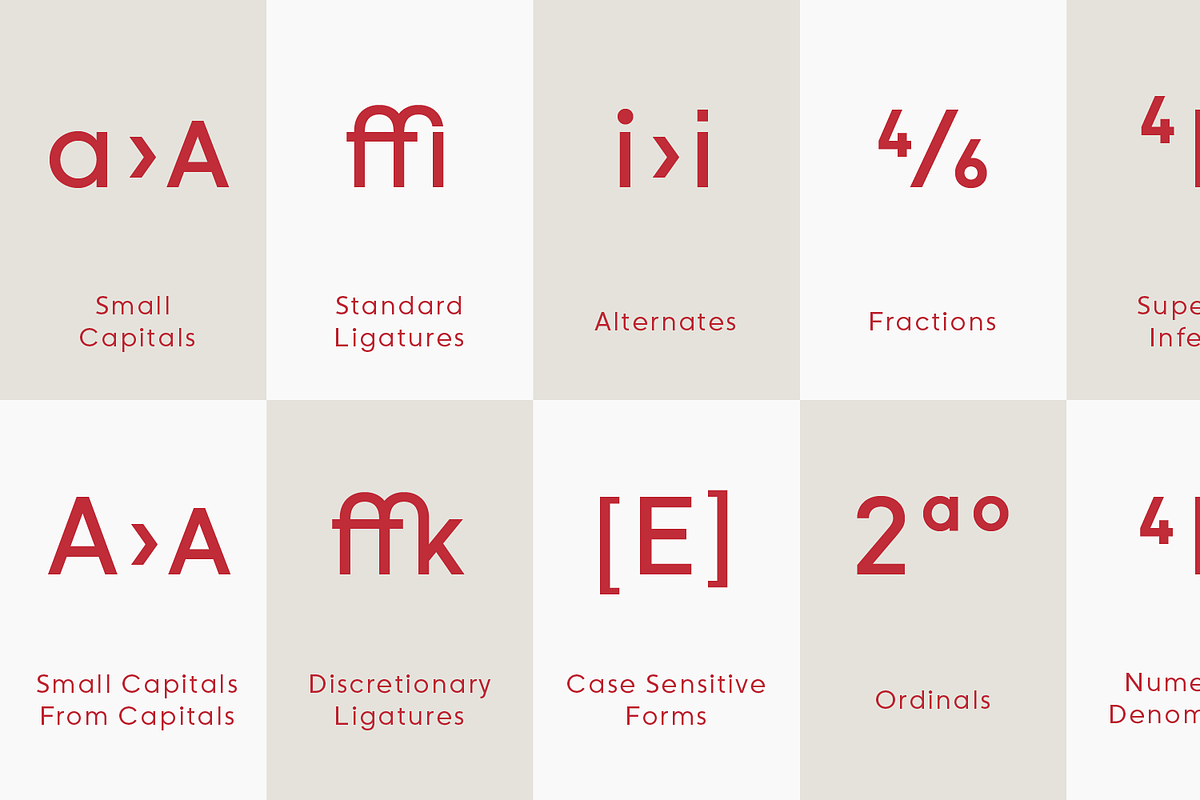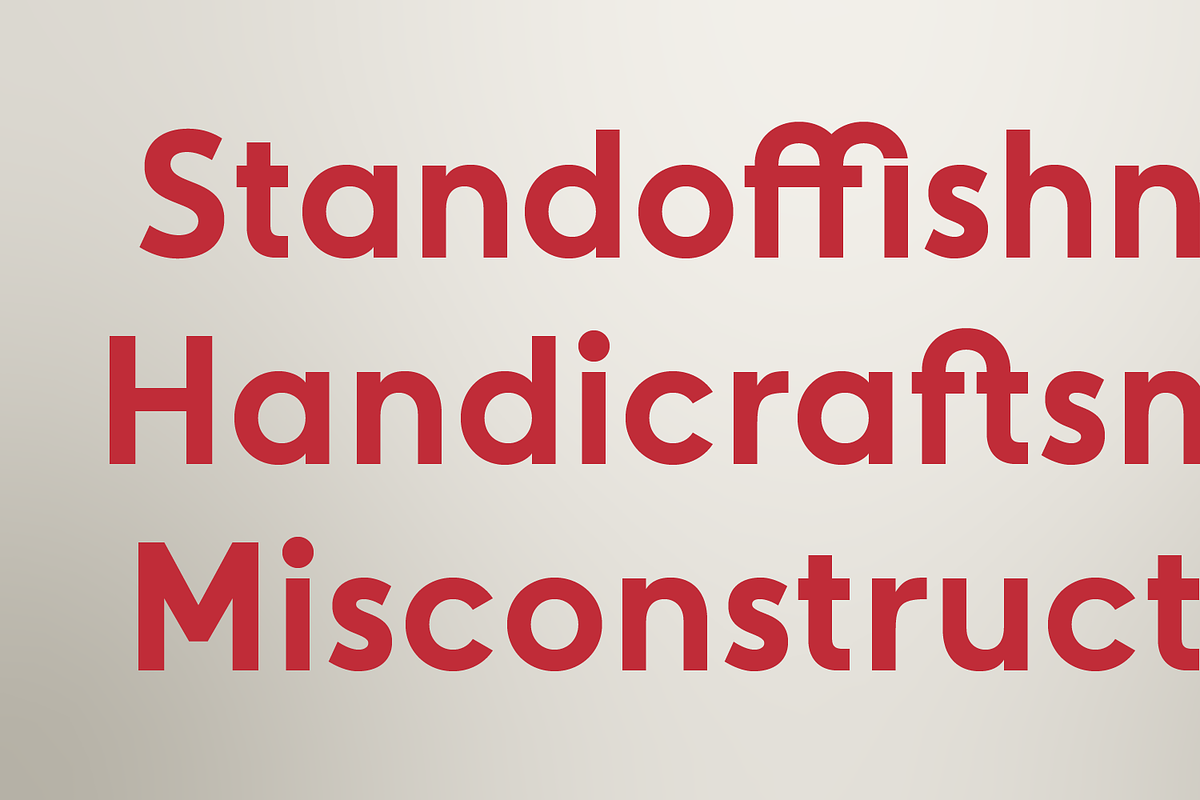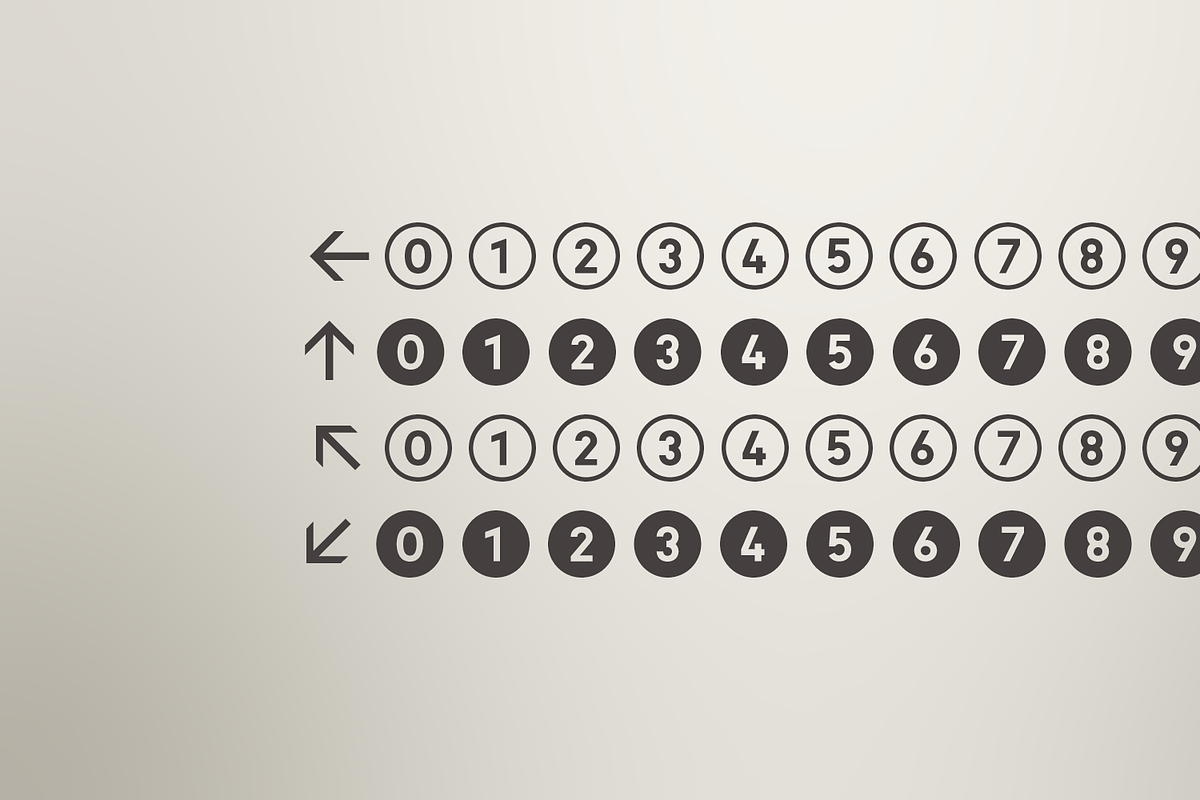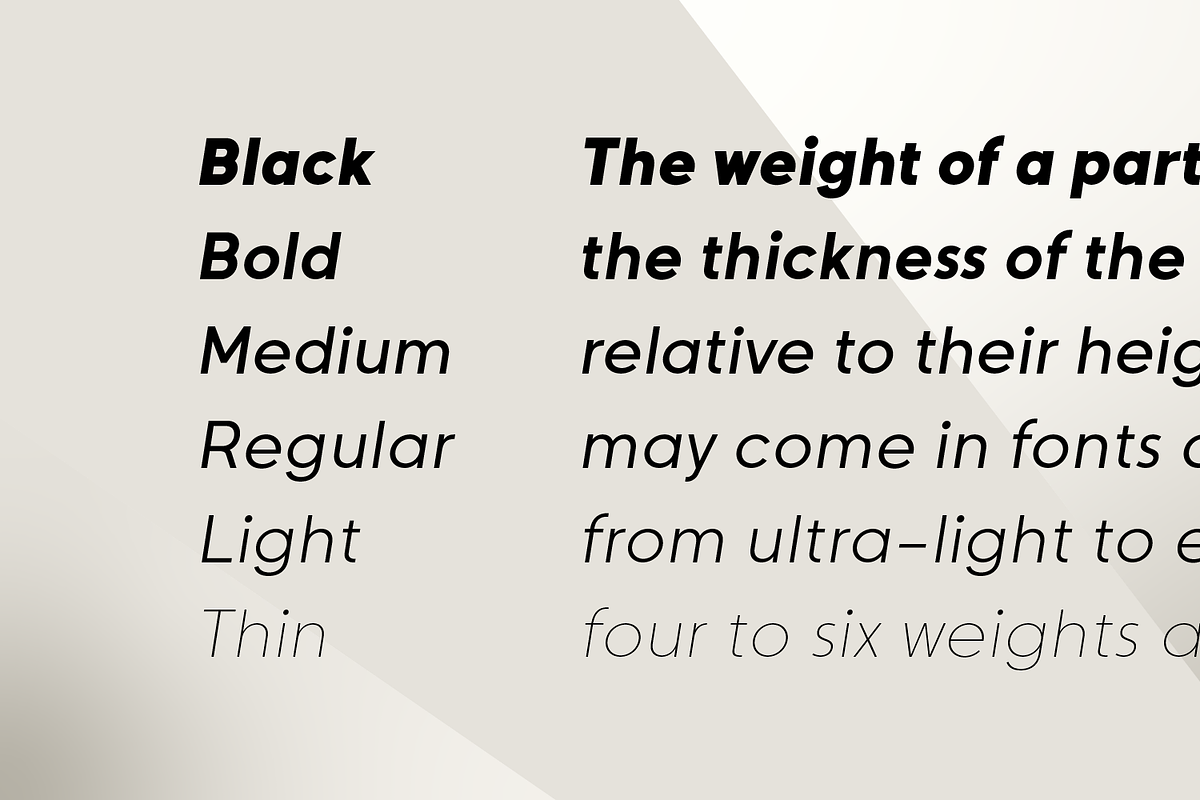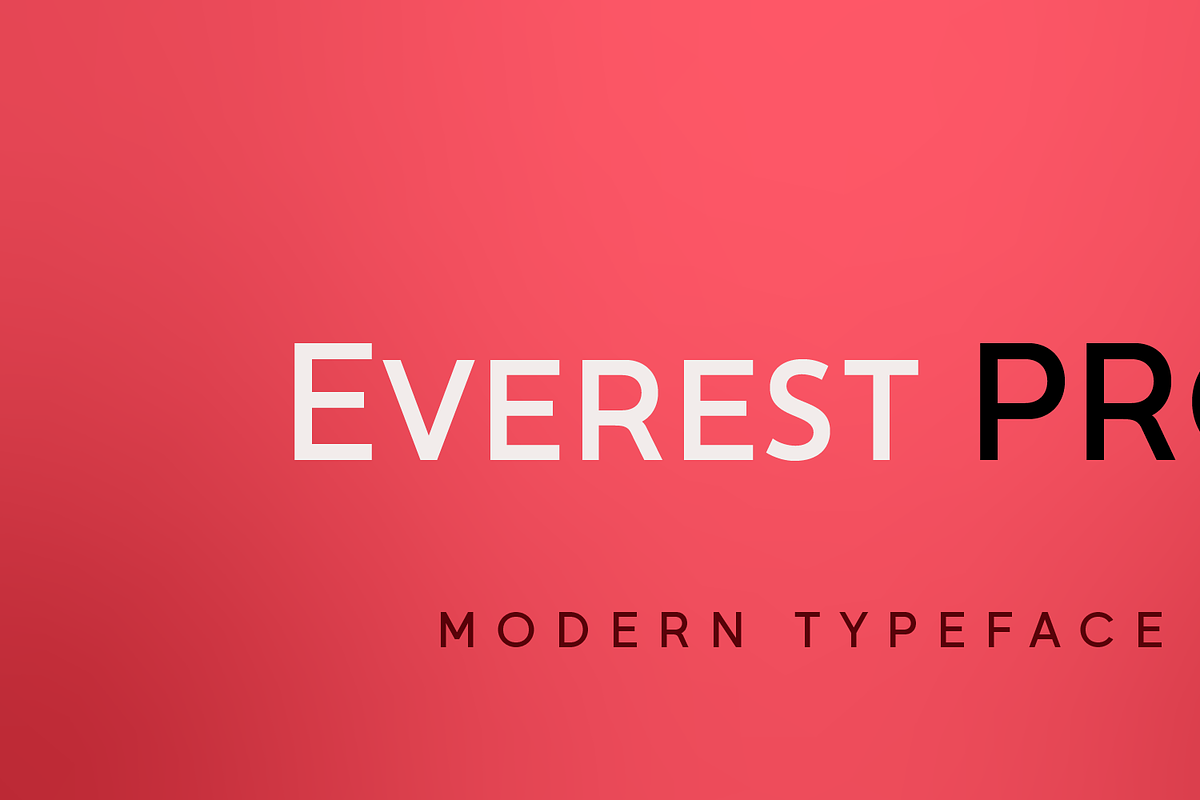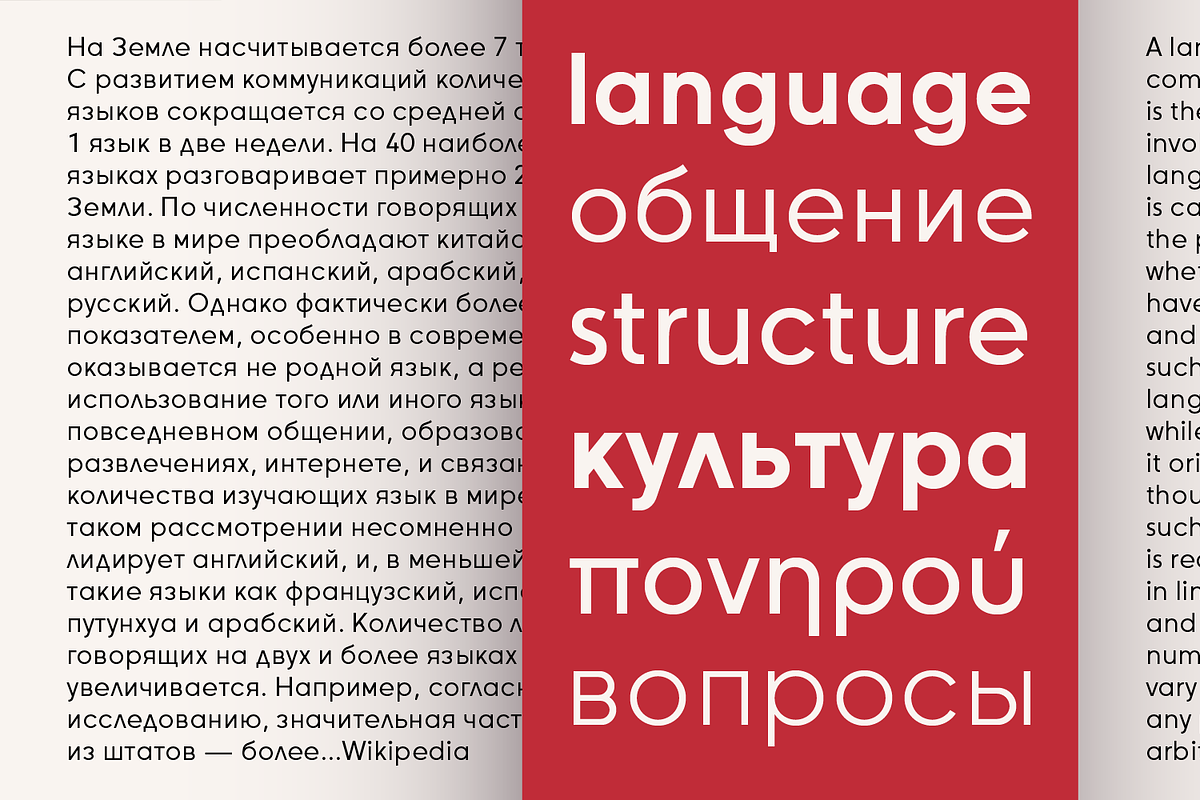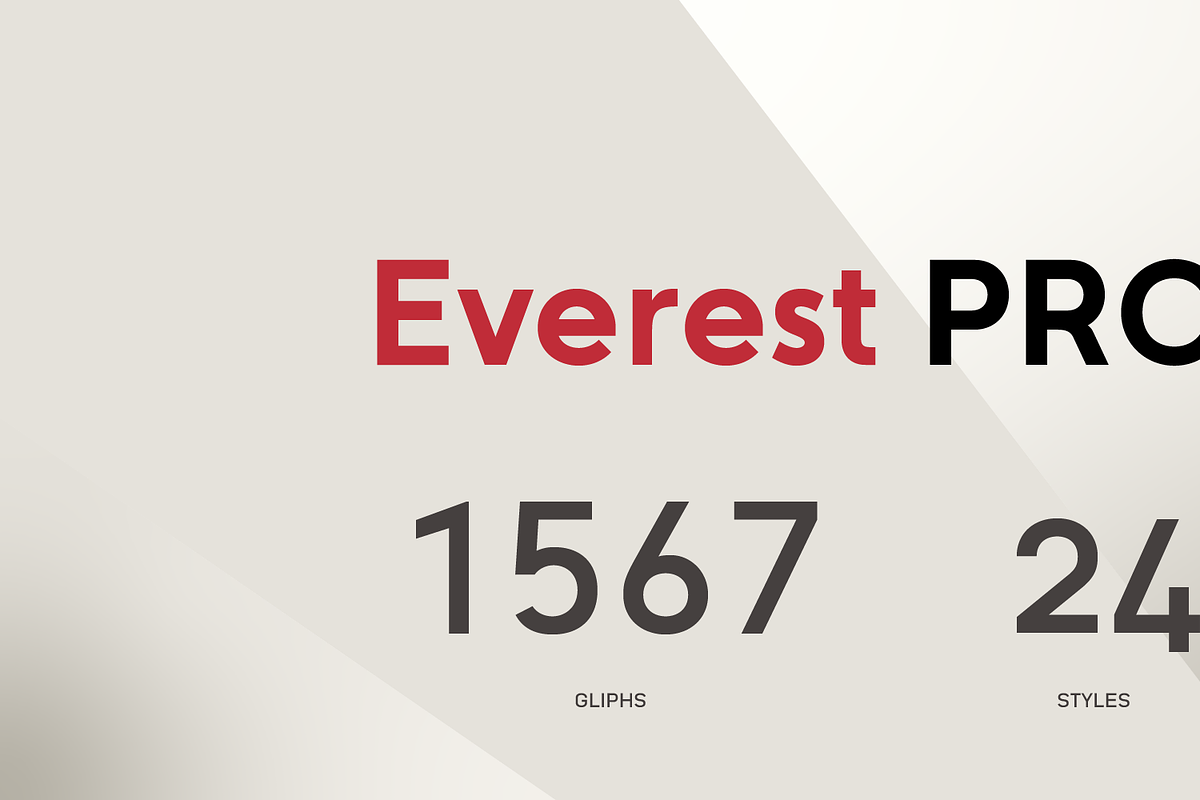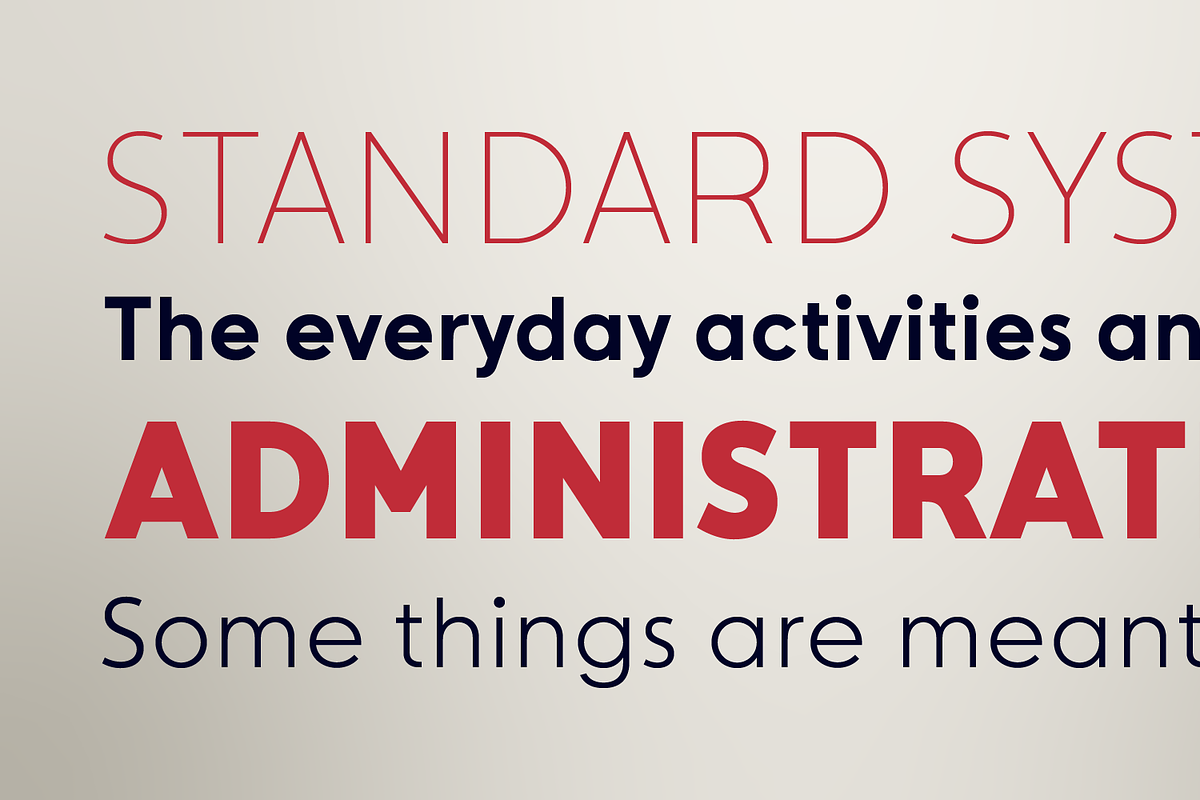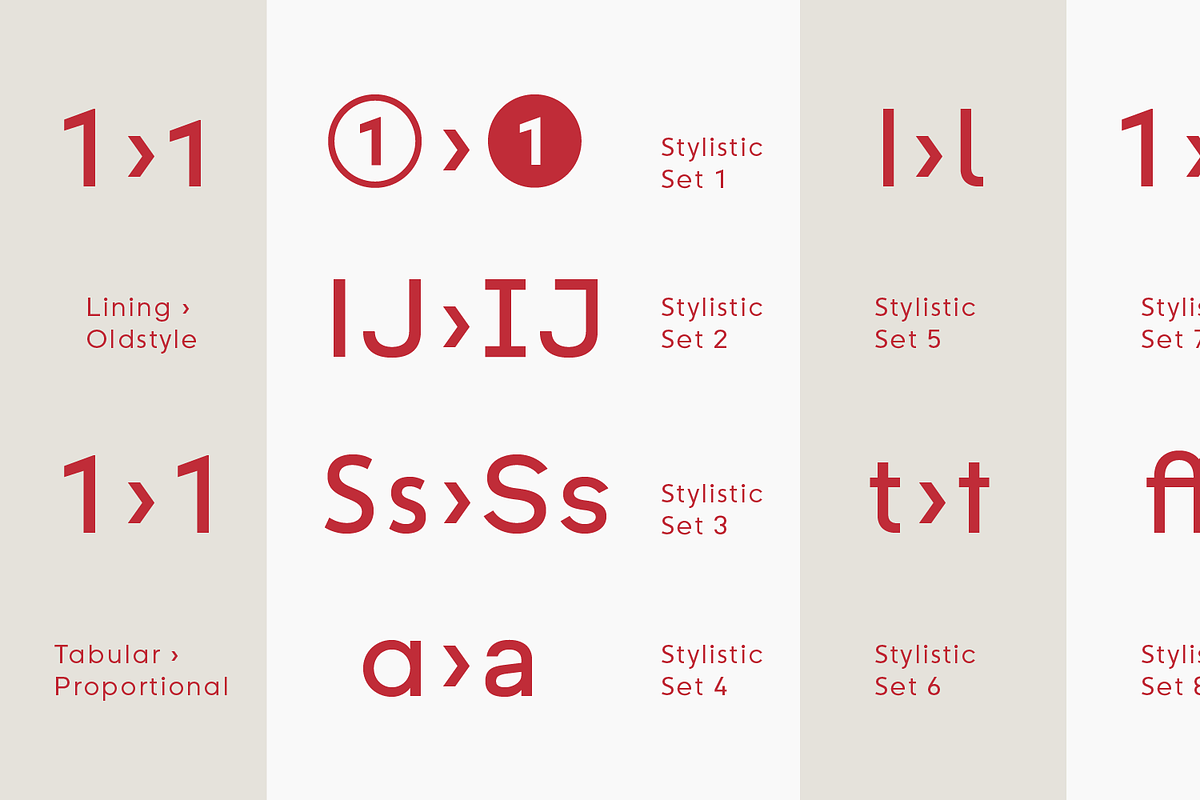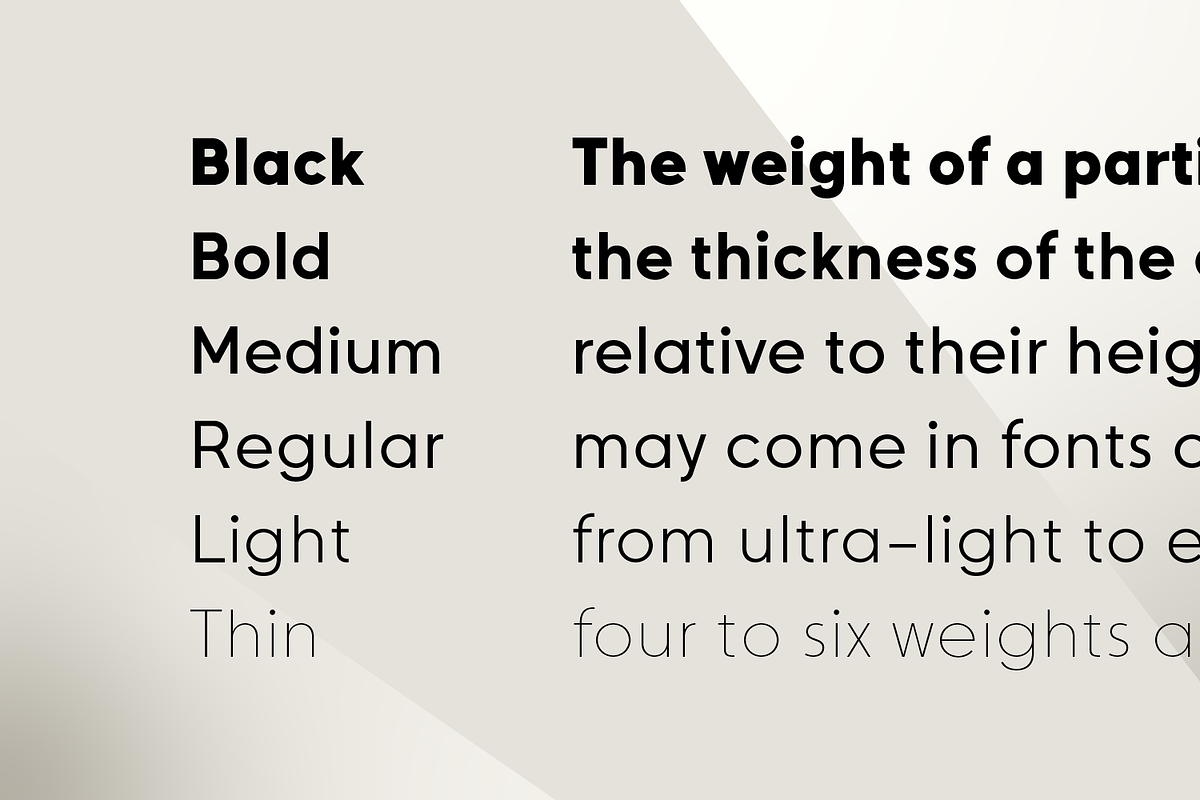
Everest Pro
The complete family contains 24 weights, 1568 glyphs in each font, and supports OpenType features. RAlt sub-family has rounded corners. Everest Pro family is ideally suited for advertising, packaging, brand identity, books, magazines, logotype, software, sports as well as web and screen design.
Everest Pro OpenType features list: zero, ordn, case, locl, c2sc, smcp, frac, subs, sinf, tnum, sups, numr, dnom, dnom, onum, lnum, pnum, ss01, ss02, ss03, ss04, ss05, ss06, ss07, ss08, ss09, dlig, liga, salt, hist